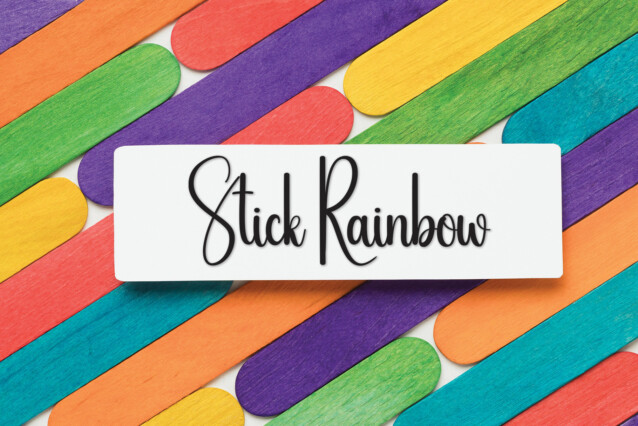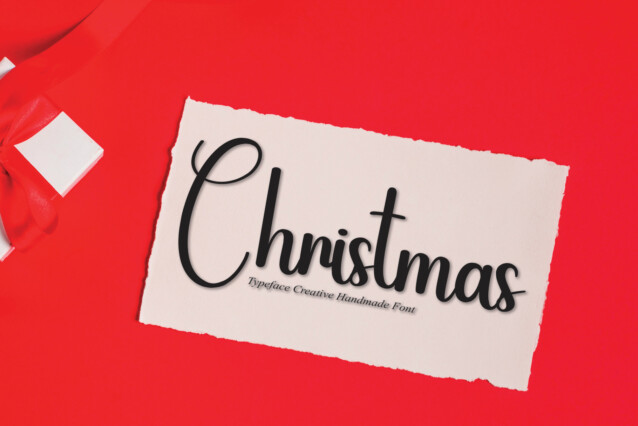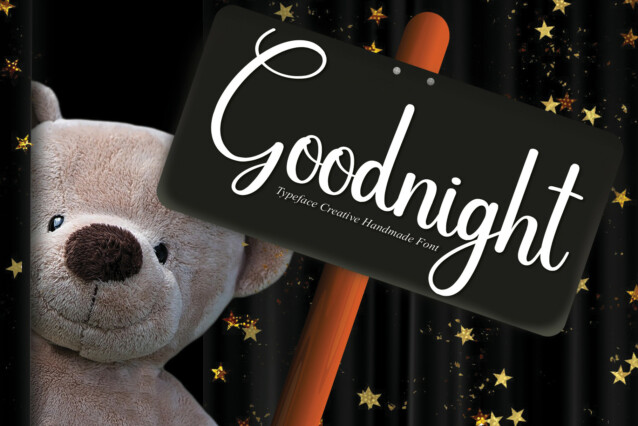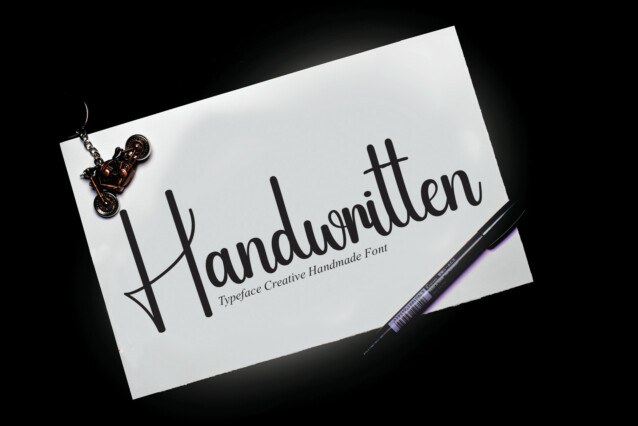
Sister Sweet Script Font
Sister Sweet Script Font is a sweet and cursive handwritten font. This gentle font will look gorgeous on a variety of design ideas. It will add a joyful and romantic touch to each of your projects!